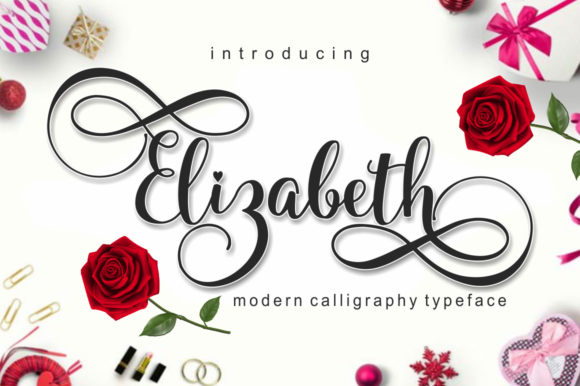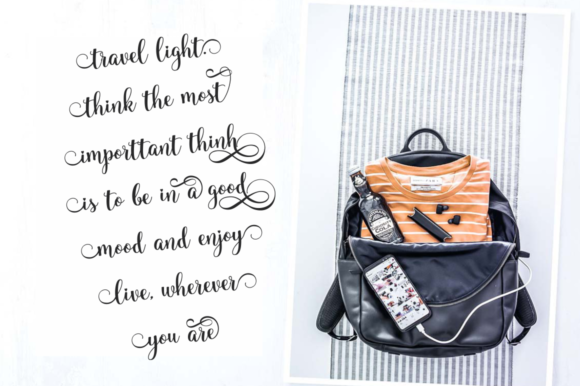
Elizabeth Font
About Elizabeth Font
Introducing “Elizabeth,” a truly enchanting and sophisticated handwritten font that exudes elegance and grace. With its flowing and delicate letters, “Elizabeth” brings a touch of timeless beauty to any design project, making it the perfect choice for a wide range of applications. From wedding invitations to thank you cards, quotes to greeting cards, logos to branding, and more, “Elizabeth” adds a touch of exquisite artistry to every design.
For wedding invitations, “Elizabeth” sets the perfect tone for a celebration of love and romance. Its elegant and flowing style creates an air of sophistication, making your invitations truly captivating and memorable. Whether it’s a classic, modern, or vintage-themed wedding, “Elizabeth” complements the occasion with its touch of timeless beauty.
Expressing gratitude becomes even more heartfelt with “Elizabeth” on your thank you cards. Its graceful and delicate letters convey a sense of appreciation and elegance, making your messages feel truly special and sincere. Your recipients will be delighted by the thoughtful and artistic touch that “Elizabeth” brings to each card.
When it comes to crafting quotes or inspirational messages, “Elizabeth” adds a sense of grace and refinement to the words. Its smooth lines and stunning alternates enhance the beauty of the text, making your quotes visually striking and impactful. Whether you’re creating wall art, social media graphics, or printed materials, “Elizabeth” elevates the message and captures the attention of your audience.
For greeting cards, “Elizabeth” becomes the perfect choice to convey heartfelt sentiments. Its elegant and flowing style enhances the emotional connection, making your cards truly special and cherished. Whether it’s for birthdays, anniversaries, or special occasions, “Elizabeth” brings a touch of handwritten beauty to your designs.
The versatility of “Elizabeth” extends to branding and logo design. Its delicate and contemporary style adds a touch of refinement to your brand identity, leaving a lasting impression on your customers. From luxury brands to creative businesses, “Elizabeth” becomes the signature element that represents your brand with grace and sophistication.
With its stunning alternates and PUA encoding, “Elizabeth” allows easy access to a variety of glyphs and swashes, giving you creative freedom and flexibility in your designs.
Every design project can benefit from the elegance of “Elizabeth.” Its timeless beauty and contemporary flair make it the perfect addition to any creative idea. Whether you’re designing wedding materials, creating branded content, or crafting artistic pieces, “Elizabeth” elevates your projects to new levels of beauty and sophistication.
So, fall in love with the grace and elegance of “Elizabeth” and let its flowing letters inspire your creativity. Whether it’s for wedding invitations, thank you cards, quotes, greeting cards, logos, branding, or any other design that needs an elegant touch, “Elizabeth” adds a touch of timeless beauty and elevates your projects to the highest levels.